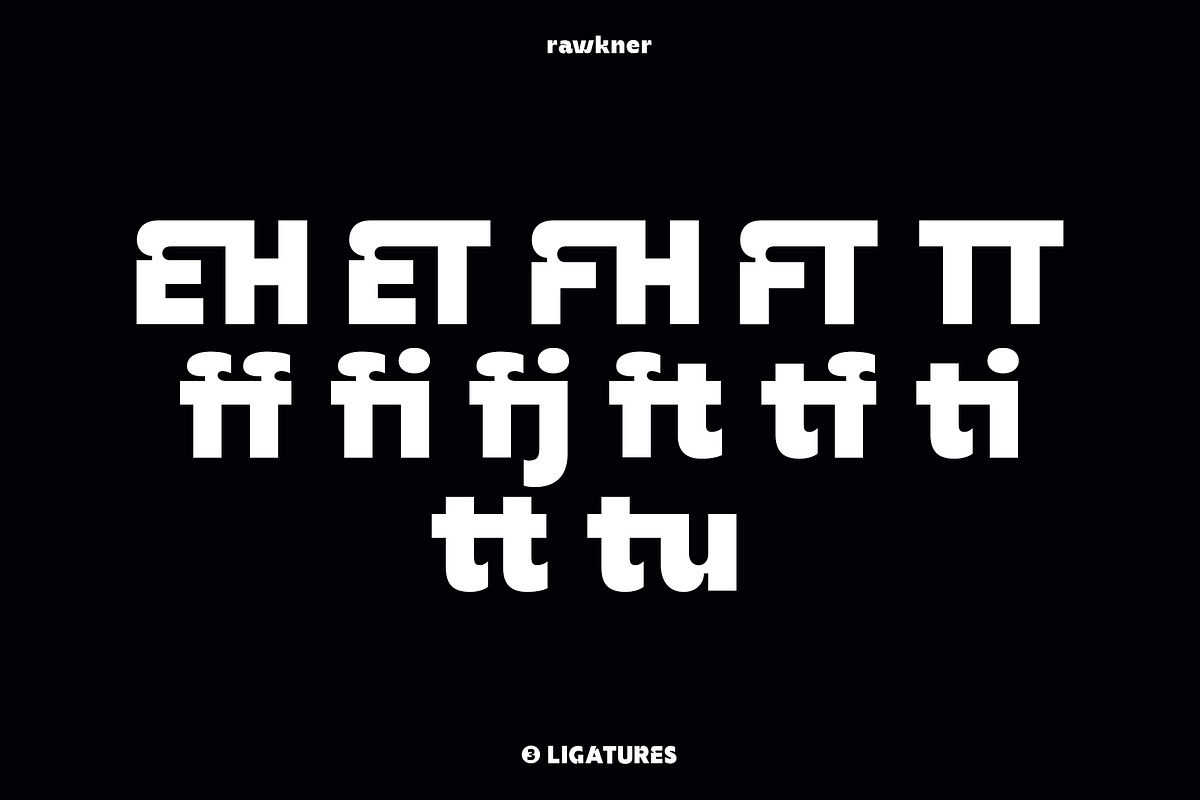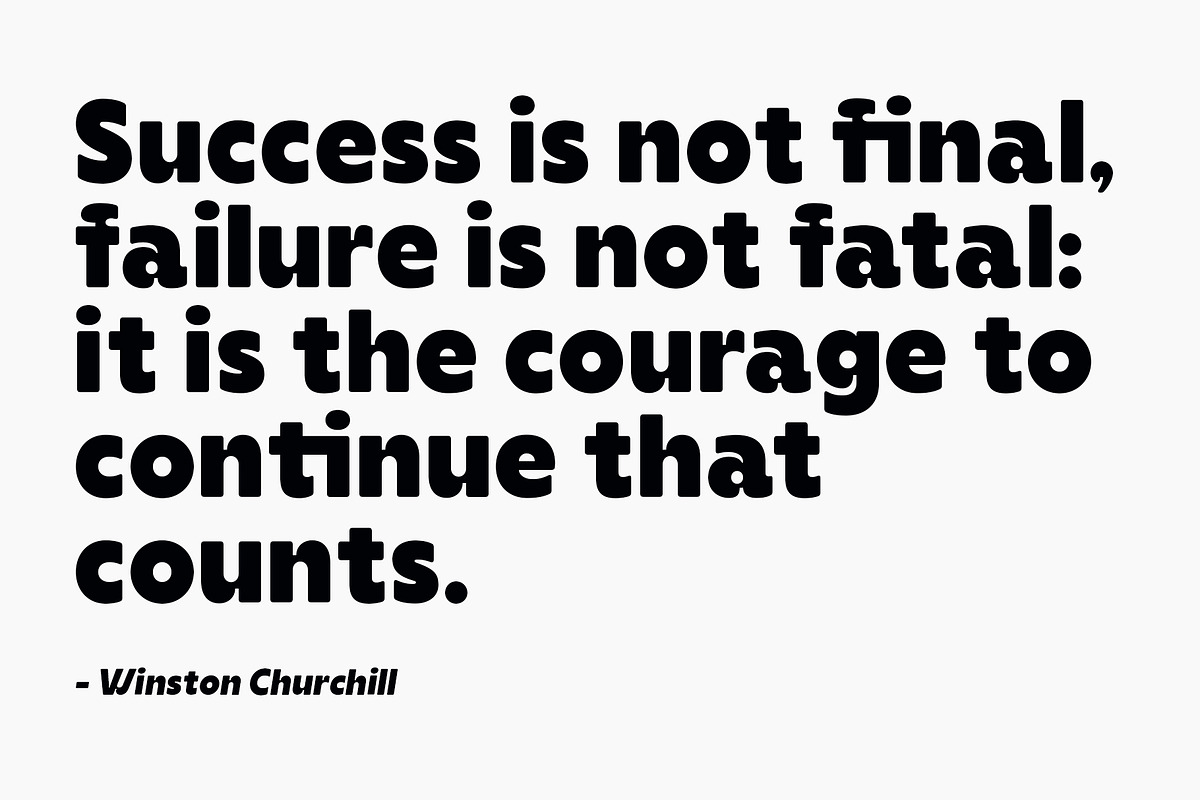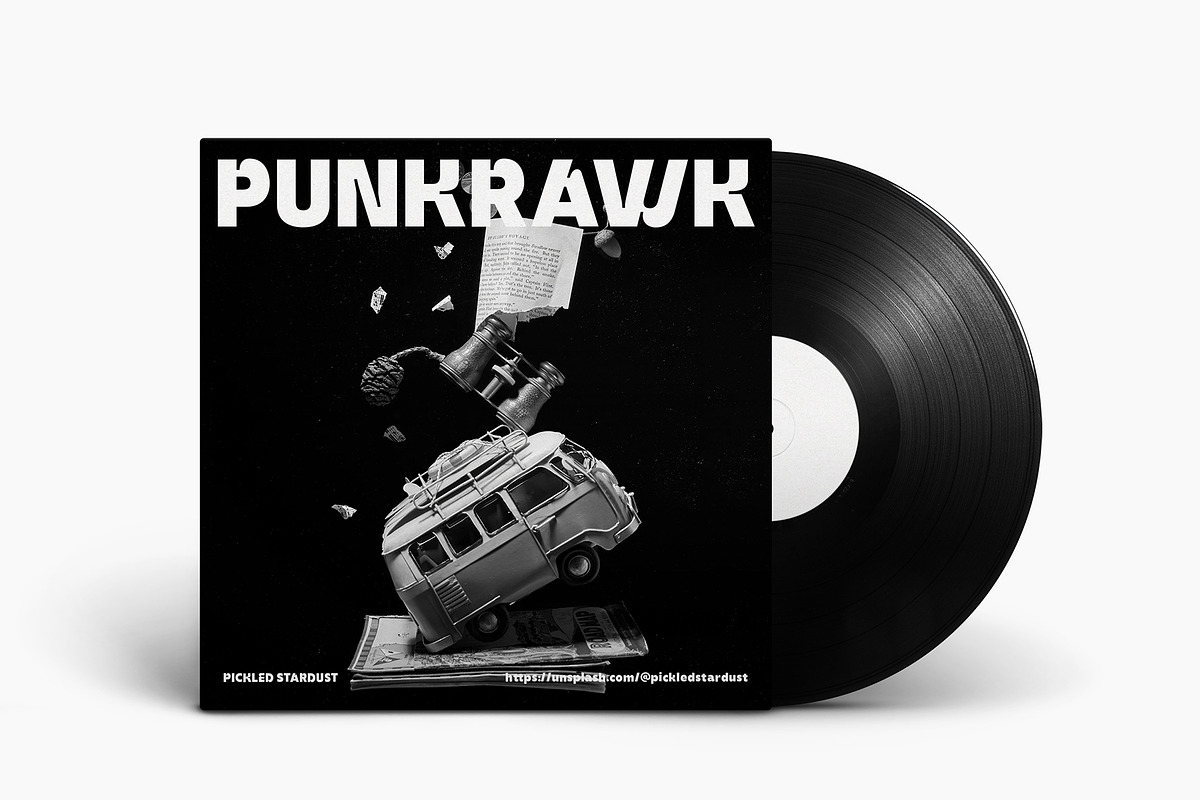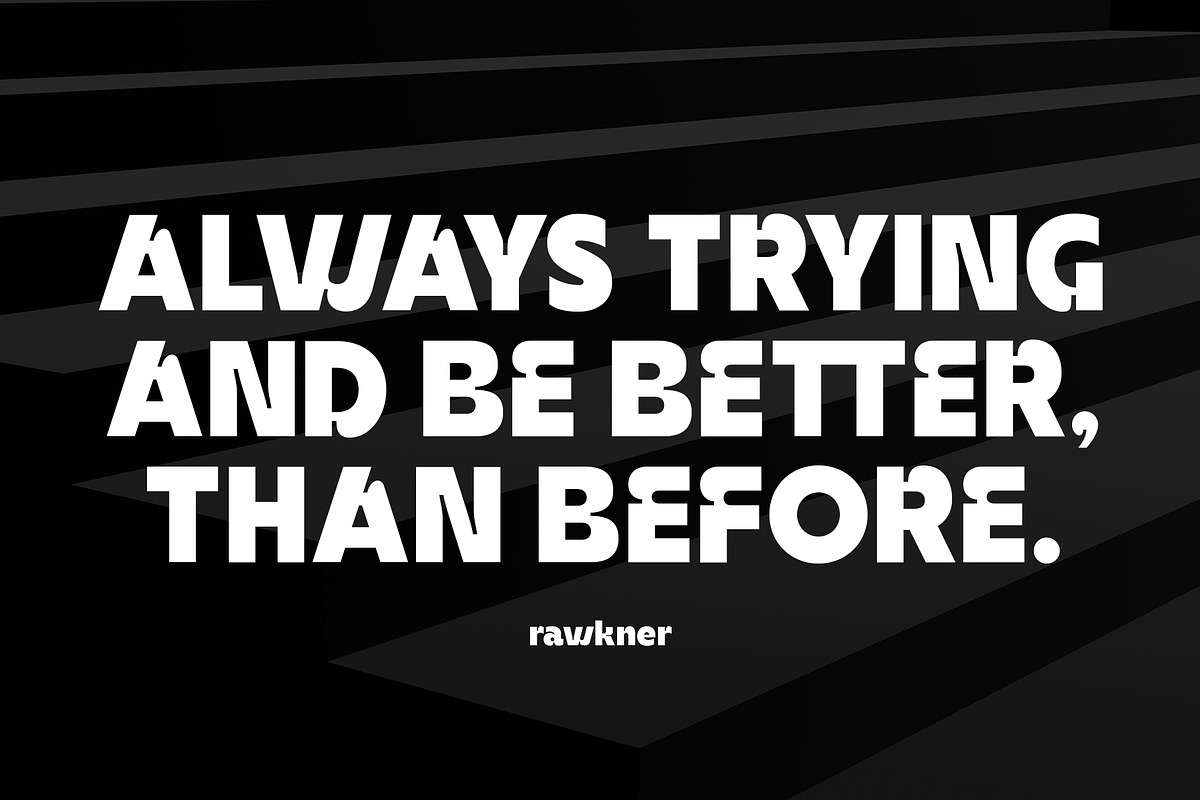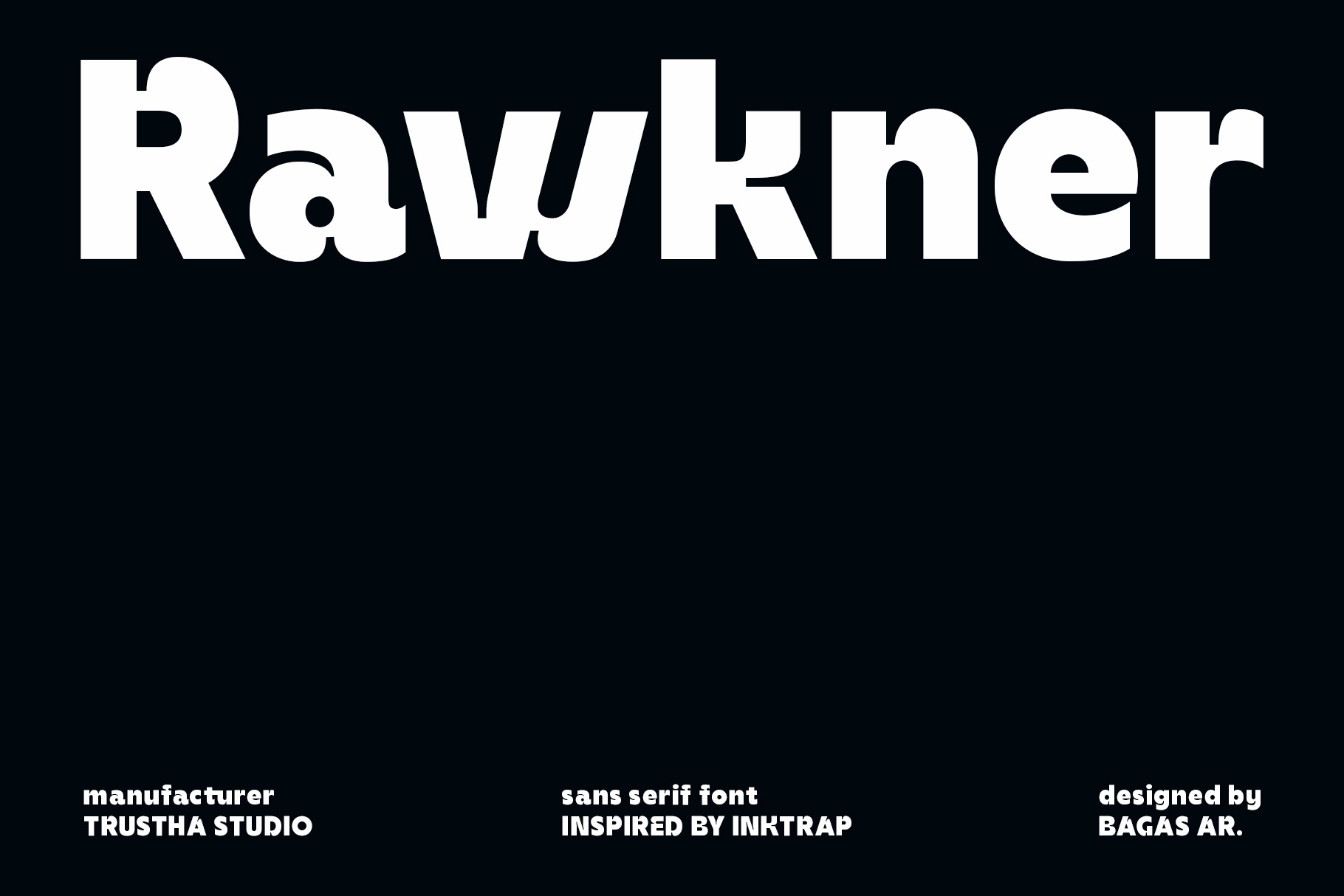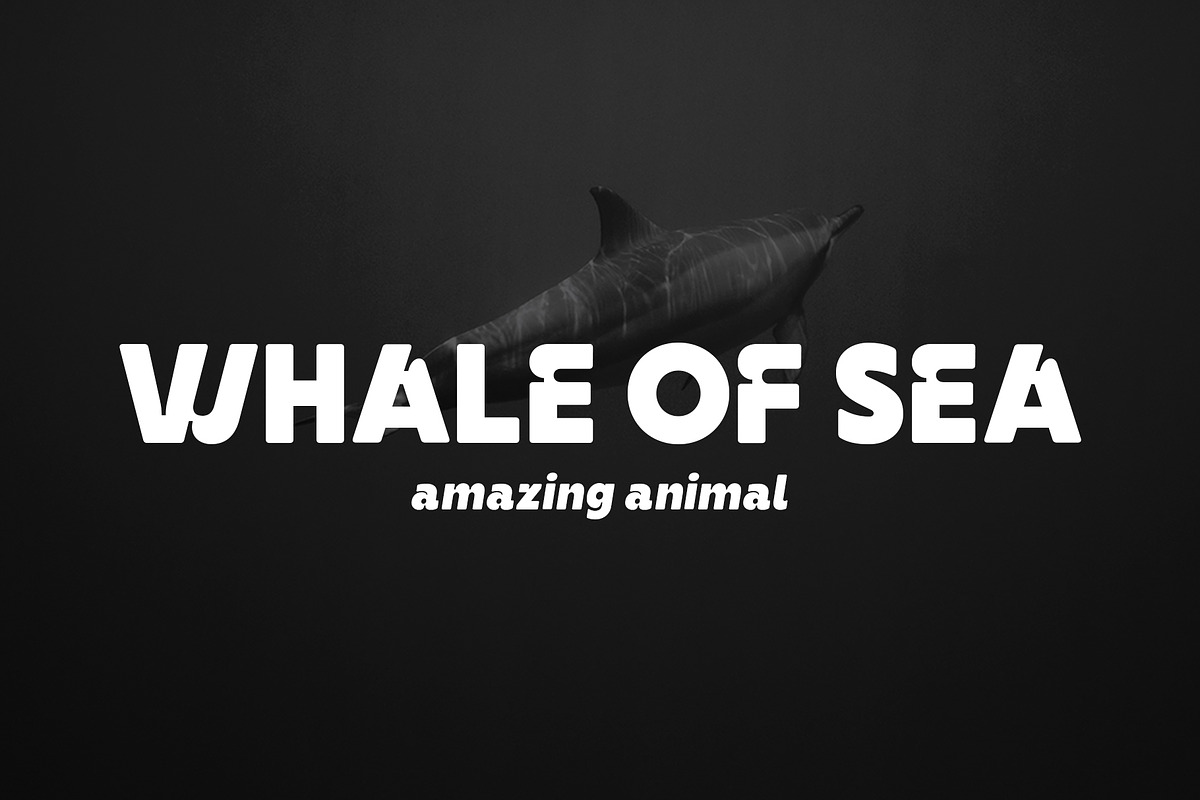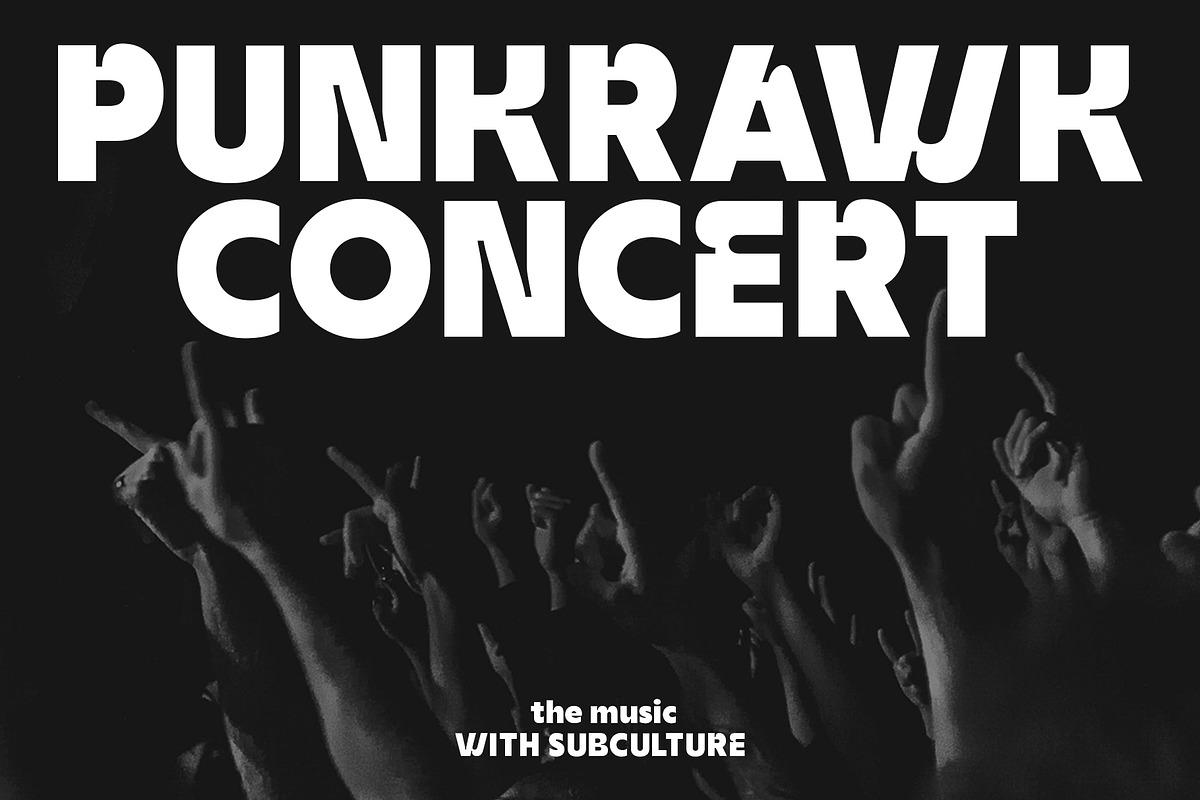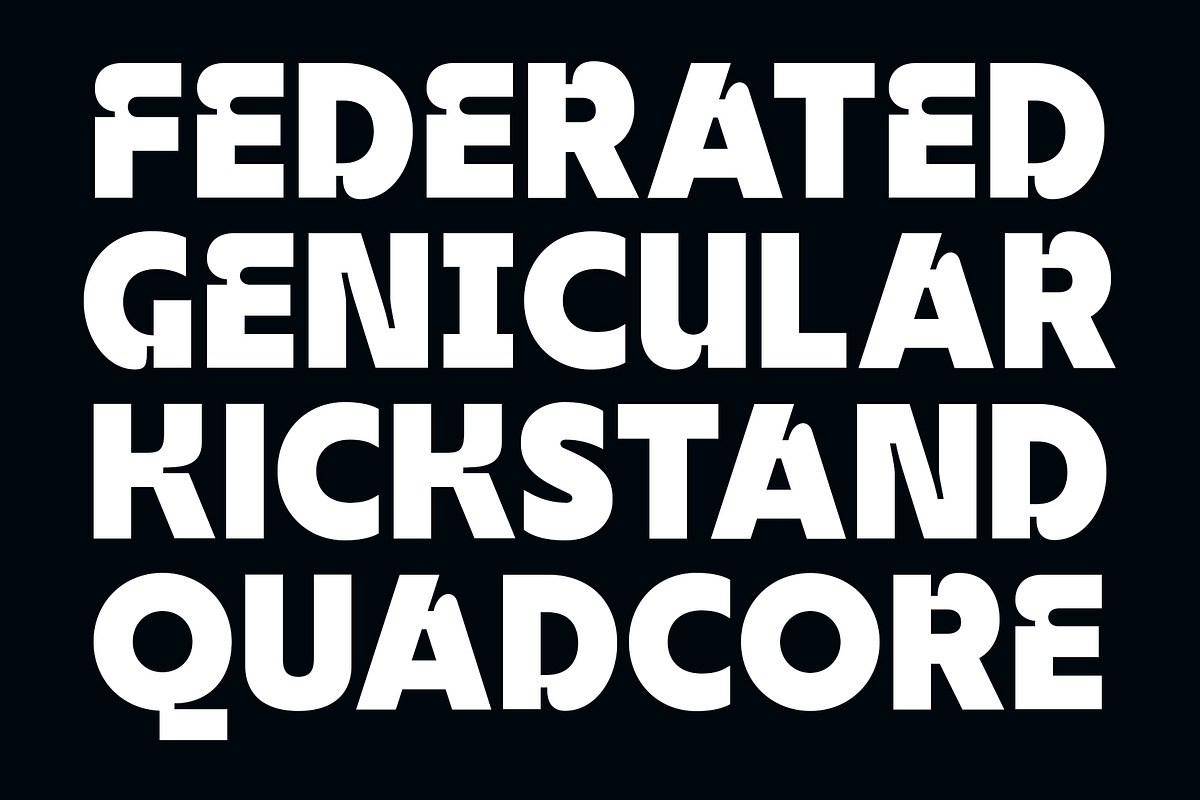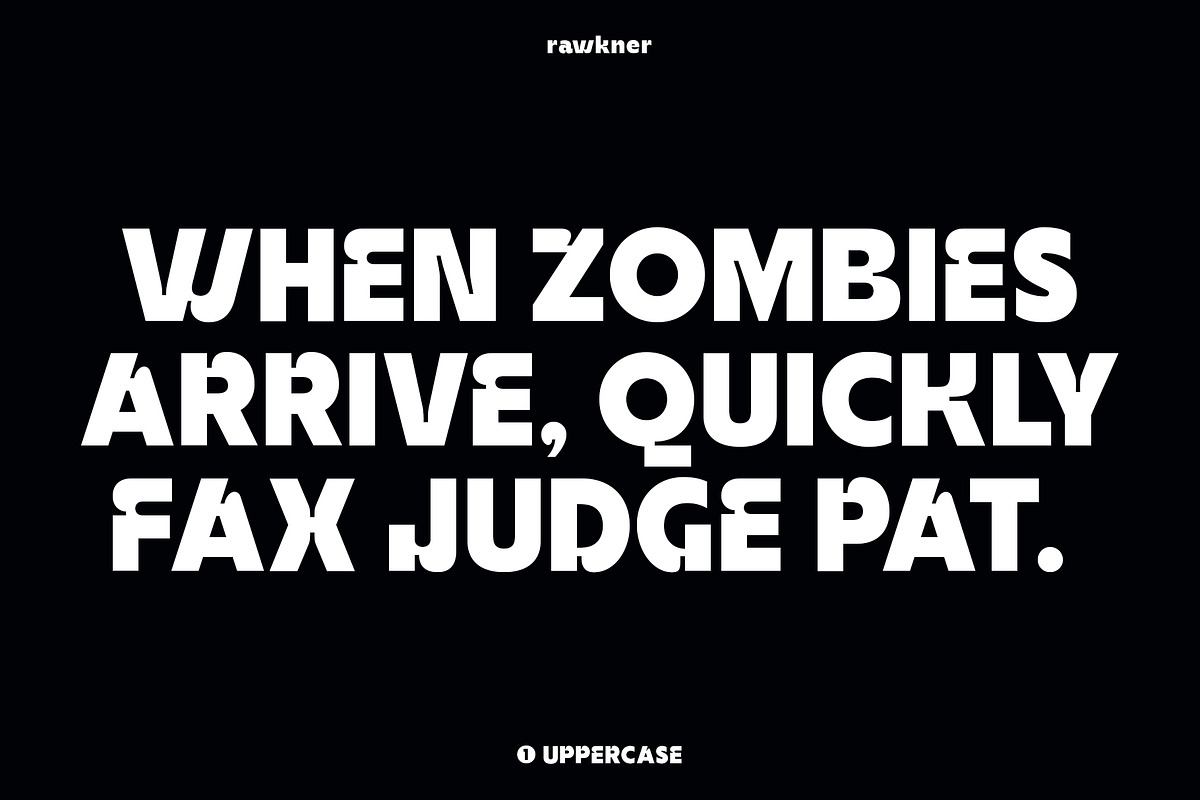
Rawkner Font
Rawkner is a sans serif font. Inspired by ink trap. The first concept is the letter "W" and "K", then the other letters refer to both. Come with four styles, regular, oblique, round, and round oblique.
Rawkner is perfect for the headline, and subheadline. There are alternative glyphs that you can choose according to your project. Also, the ligature of the uppercase and lowercase will make it more perfect. Rawkner is an option that you should try for your creative project.
- Punctuation & symbols
- Stylistic Set
- International characters (Multilingual)